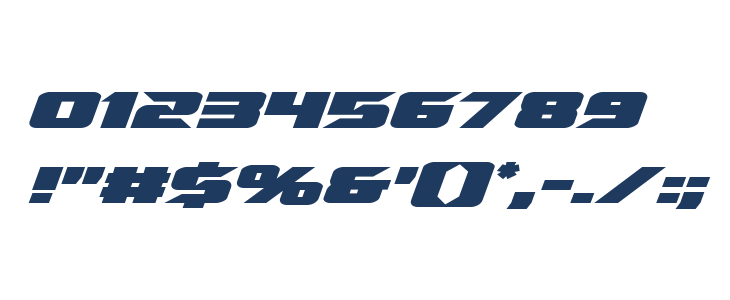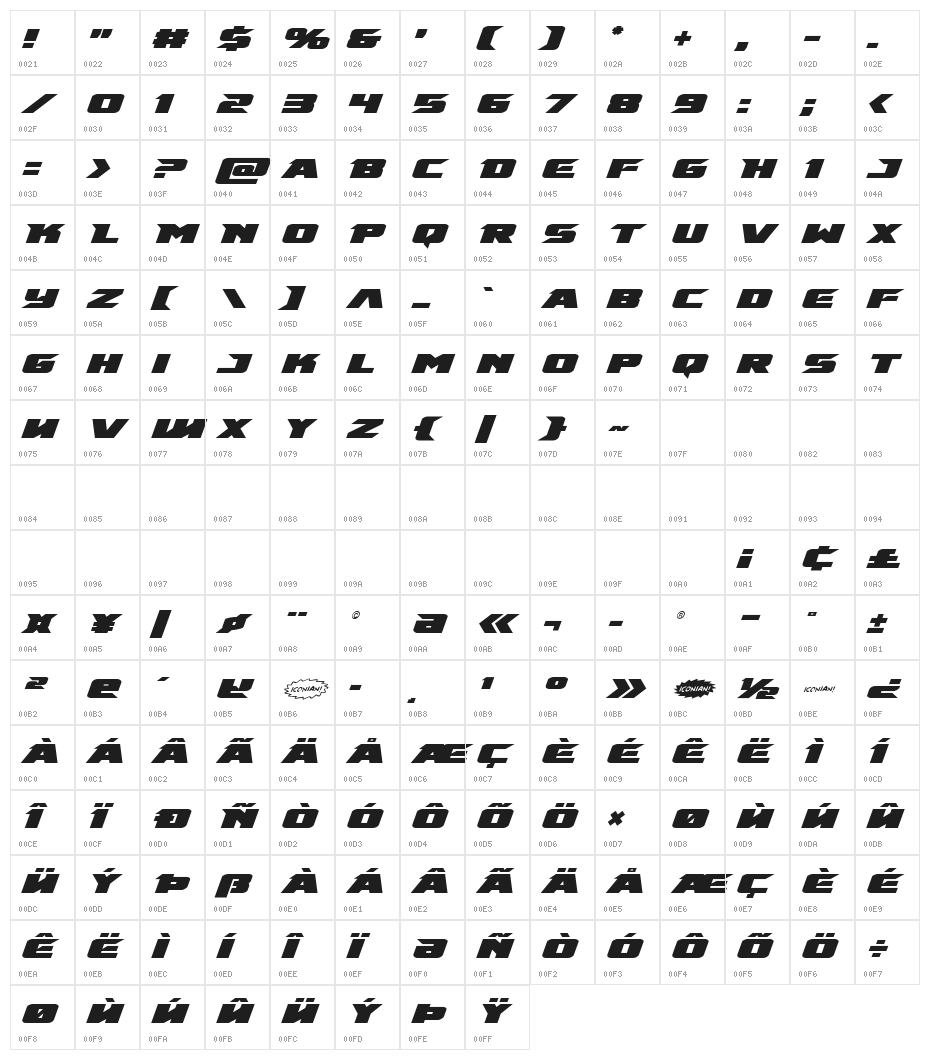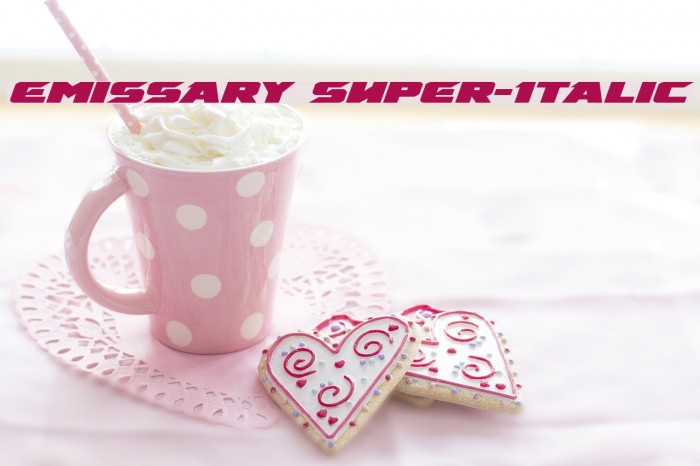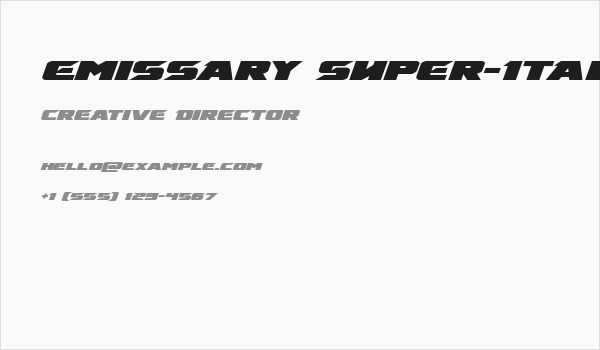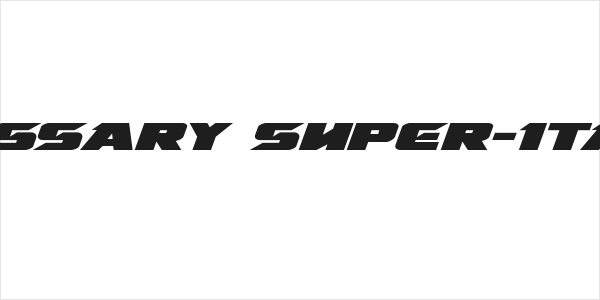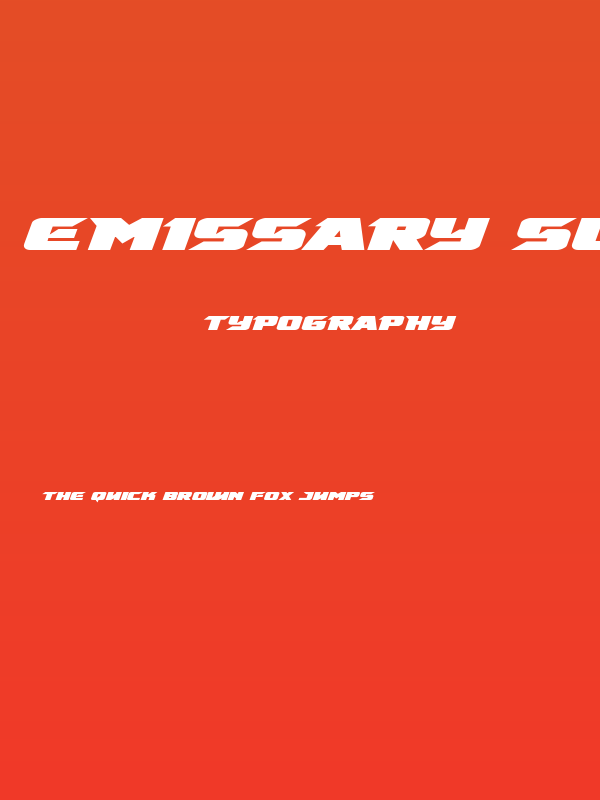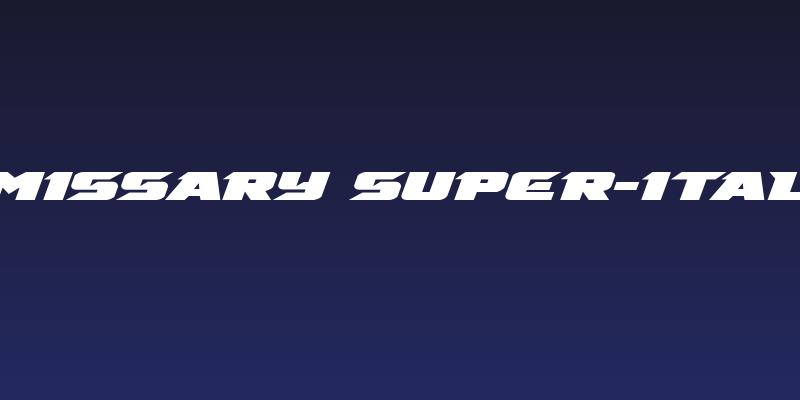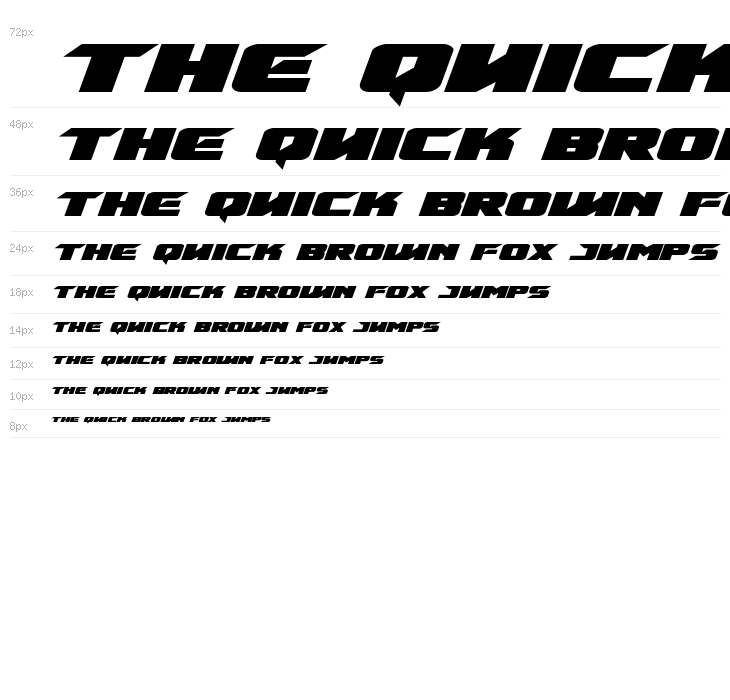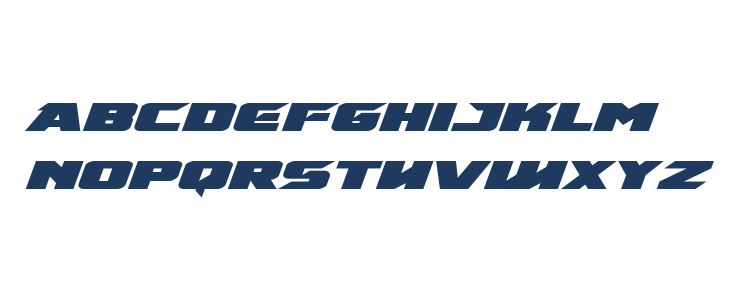
Emissary Super-Italic Font
Emissary Super-Italic Description
This font features a bold, italicized style with a strong, dynamic presence. The characters are sharply angled, giving a sense of motion and energy. The uppercase letters are particularly striking, with a futuristic and aggressive design. The lowercase letters maintain the same boldness, ensuring consistency across the typeface. Numbers and special characters are equally bold and stylized, making them stand out. The overall look is modern and edgy, suitable for projects that require a strong visual impact.